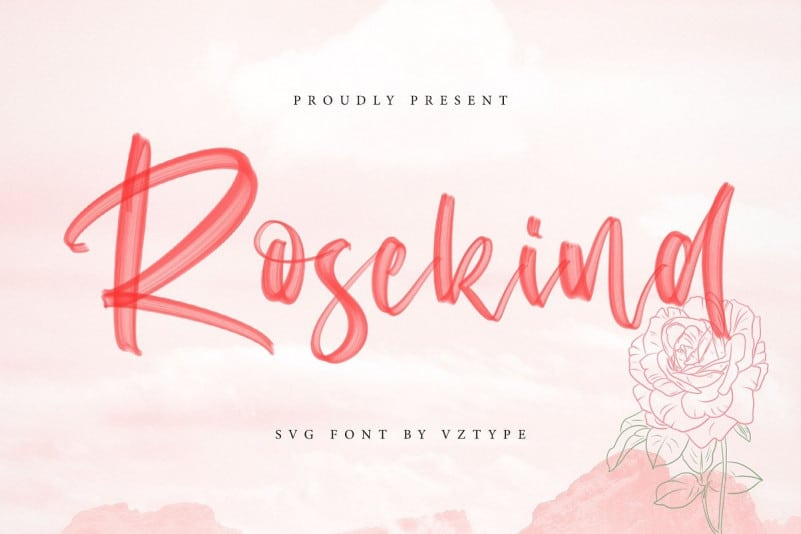
Rosekind Brush Font
Rosekind Brush Font is a hand crafted brush script that is full of bonus features including a big selection of ligatures, alternates and swashes, created so you can easily create unique typographic designs. Rosekind is designed and shared by VZ Type.
New font brushed very interesting, also provided some ligatures and swashes extra. Perfect for projects brands, logos, product packaging, posters, invitations, greeting cards, news, blogs, everything including personal charm etc.